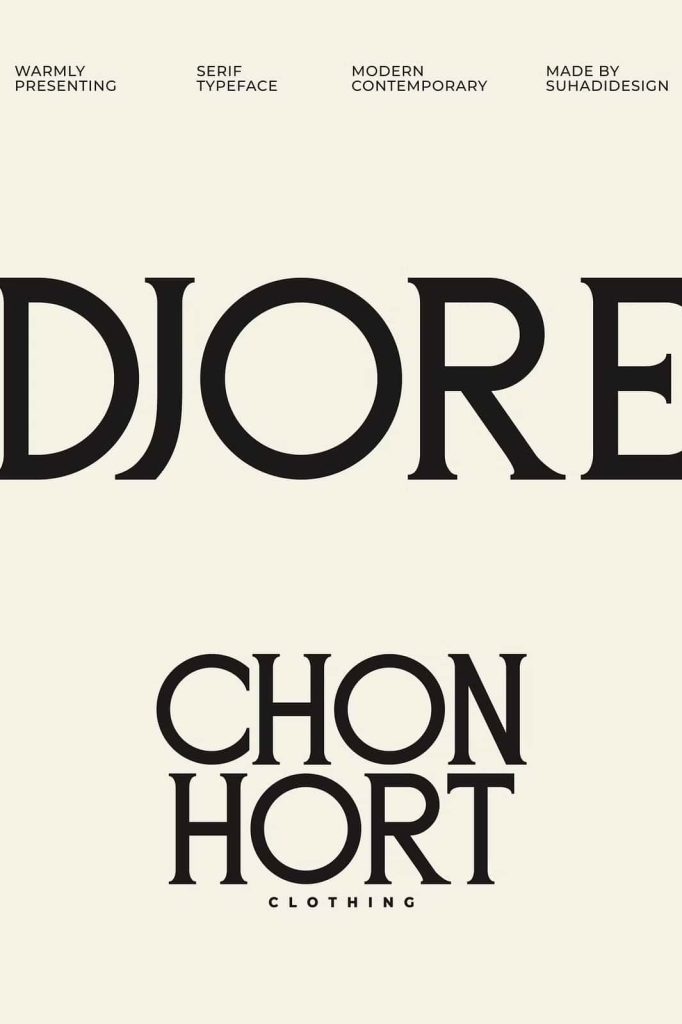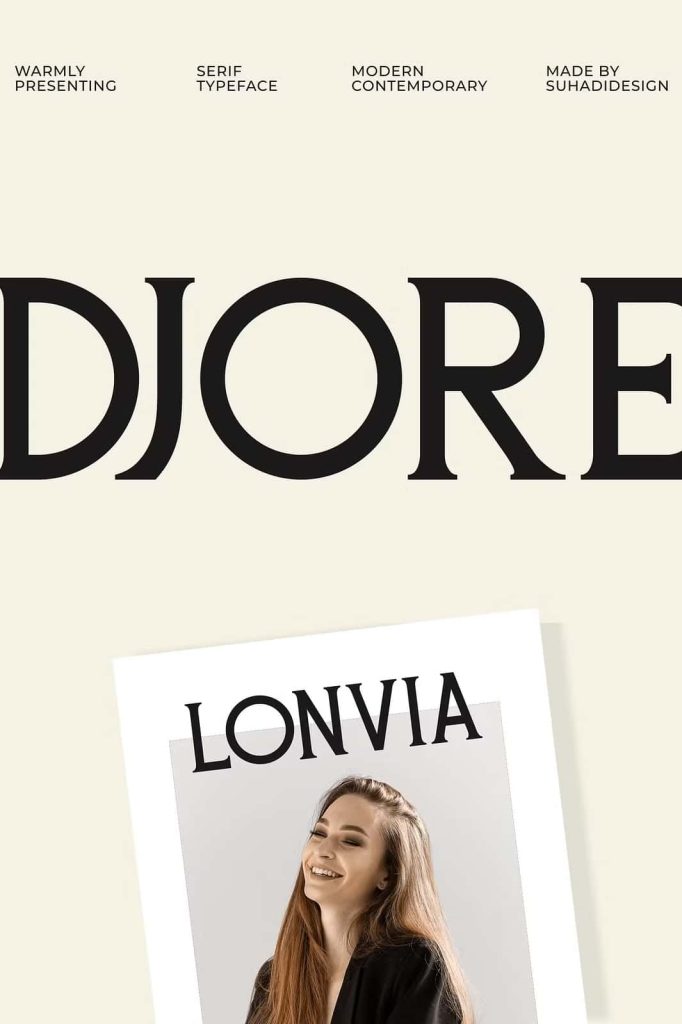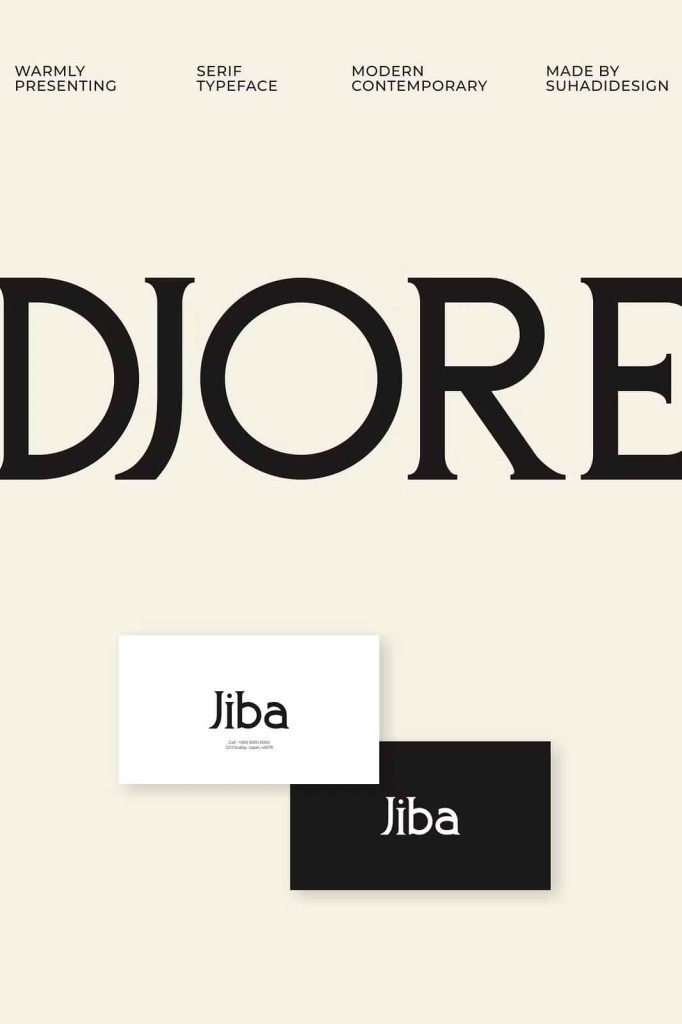
Djore Serif Typeface Minimal Font
Djore is a modern minimalist serif font designed for creatives who want to combine elegance, sophistication, and contemporary style in one versatile typeface. With its refined serif details, balanced proportions, and clean visual character, Djore gives every project a polished and professional appearance. This elegant serif typeface works especially well for designers who want to create a luxurious look without adding unnecessary complexity.
Designed with a modern approach to classic serif typography, Djore brings together timeless letterforms and contemporary styling. Its refined appearance makes it suitable for a wide range of creative projects, from editorial layouts and magazines to branding, business cards, books, social media graphics, beauty products, and sophisticated advertising materials. Whether you are building a complete visual identity or creating a single headline, Djore can help your typography communicate confidence and quality.
A Modern Serif Font with Minimalist Character
Djore combines the recognizable elegance of serif typography with a clean minimalist structure. This balance allows the typeface to feel both traditional and modern. Its carefully shaped letterforms create a smooth reading experience while adding distinctive character to headlines, titles, and brand names.
The minimalist approach also gives Djore excellent flexibility. Instead of overwhelming a composition, the font supports the overall design and allows photography, illustrations, colors, and other visual elements to work naturally alongside the typography. This makes Djore an excellent option for designers who prefer sophisticated layouts with a strong but controlled typographic presence.
Elegant Typography for Premium Branding
Djore is an excellent choice for branding projects that require a classy and sophisticated identity. Use this modern serif font to create logos, brand names, product identities, packaging, promotional materials, and visual communication for premium businesses. Its refined appearance can help a brand communicate elegance, confidence, and attention to detail.
The font works particularly well for fashion labels, beauty brands, lifestyle businesses, creative studios, jewelry companies, luxury services, and boutique products. You can use Djore as the primary display typeface or pair it with a clean sans serif font to create contrast between headings and supporting text. This combination can produce a balanced identity that feels contemporary and professional.
Create Sophisticated Logo Designs
Logo designers can use Djore to build memorable wordmarks and elegant brand signatures. Its serif construction gives names a distinctive visual presence while the minimalist structure keeps the final logo clean. Experiment with uppercase and lowercase combinations, spacing, alignment, and scale to create a unique typographic identity that reflects the personality of your brand.
Perfect for Magazines and Editorial Design
Editorial design provides another strong application for Djore. Its elegant serif character naturally complements magazines, newspapers, books, catalogs, lookbooks, and publications. Use it for large headlines, article titles, section names, cover typography, pull quotes, and other prominent text elements.
Djore can also create an editorial atmosphere when combined with high-quality photography and generous white space. The typeface supports sophisticated layouts without competing with the main visual content. For fashion and lifestyle publications, its modern elegance can add a premium appearance to covers and promotional materials.
Books, Publications, and Professional Layouts
The refined construction of Djore makes it useful for book covers, literary projects, digital publications, and professional documents that need a distinctive typographic style. Apply it to titles and display text to establish a strong hierarchy while keeping the overall composition visually clean.
Designers can also use Djore for presentation covers, creative portfolios, brochures, catalogs, and promotional publications. Its contemporary serif style provides enough personality to make important text stand out while maintaining a professional visual tone.
Beautiful Designs for Beauty and Fashion
Djore fits naturally into beauty and fashion projects because its elegant appearance communicates refinement and sophistication. Use the font for cosmetic packaging, skincare branding, perfume labels, fashion campaigns, salon identities, editorial graphics, and beauty advertisements.
Its minimalist structure works particularly well with neutral layouts, elegant photography, subtle textures, and carefully selected color palettes. The result can feel luxurious without becoming overly decorative. Designers can use Djore to establish a consistent visual language across product packaging, websites, social media templates, and printed marketing materials.
Fashion and Beauty
Use Djore for fashion labels, beauty brands, skincare packaging, perfume designs, salon branding, and luxury campaigns.
Digital and Social Media
Build polished social media graphics, website headers, advertisements, promotional campaigns, and branded digital templates.
Stationery and Marketing
Add a refined typographic touch to business cards, brochures, invitations, presentations, posters, and professional stationery.